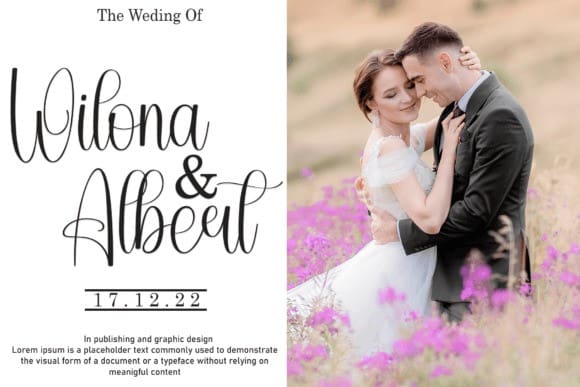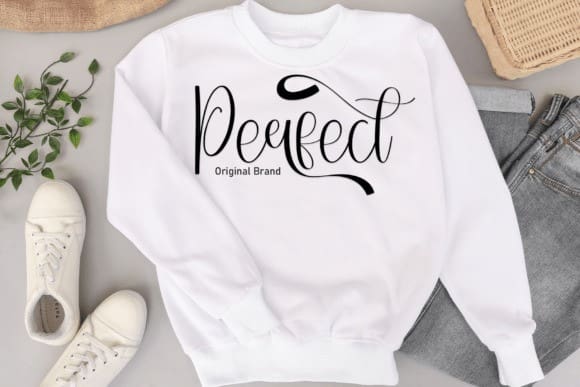
Yourself Script Font
Yourself Script Font is a sweet and friendly handwritten font. Fresh and casual, this font is ideal for writing wedding invitations, cards, or any other design that might need a lovely touch.